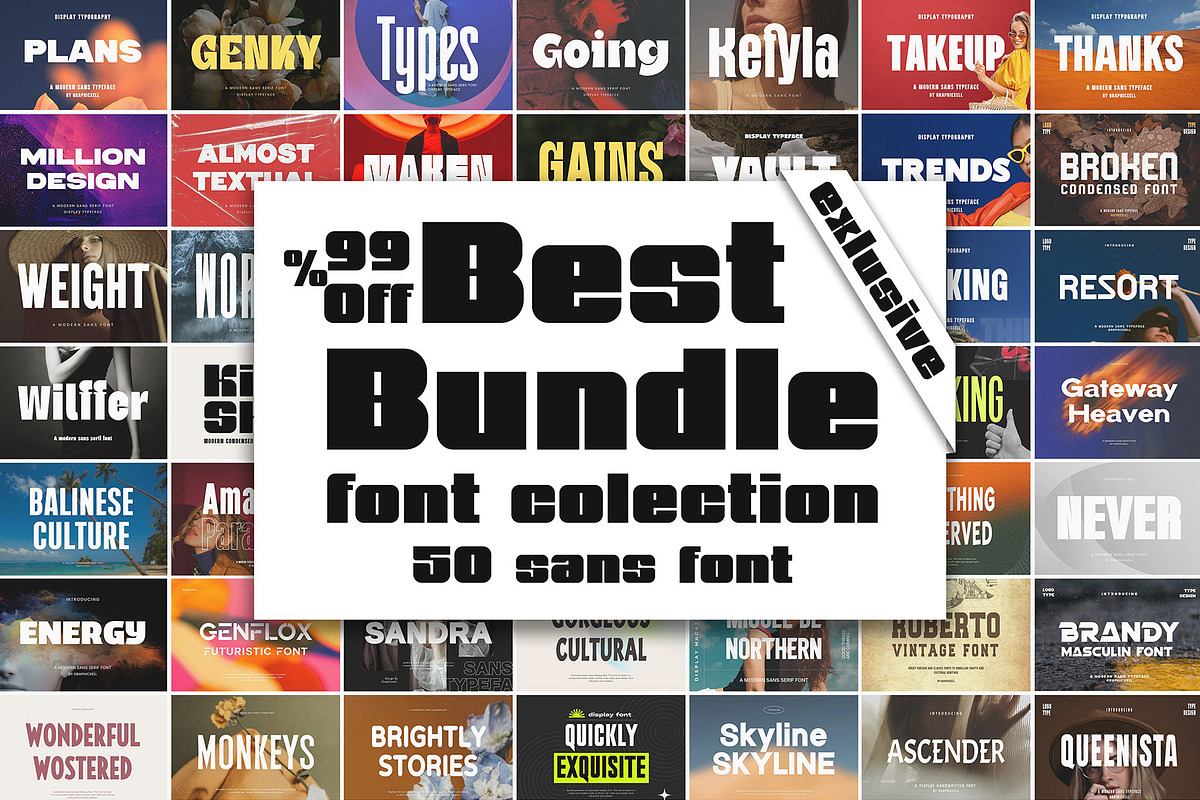
Best Bundle 50 Sans Serif Font Free Download
The Best Bundle 50 Sans Serif Font Free Download is an expansive collection featuring 50 high-quality sans serif fonts, perfect for any project that demands clean, modern, and versatile typography. Whether you're working on logos, branding, websites, posters, social media graphics, or product packaging, this bundle provides a wide variety of sans serif styles to suit your design needs.
From minimalistic and sleek to bold and striking, the Best Bundle 50 Sans Serif Font offers something for every design challenge. It includes multiple weights, styles, and multilingual support, giving you the flexibility to create standout designs across both digital and print media.